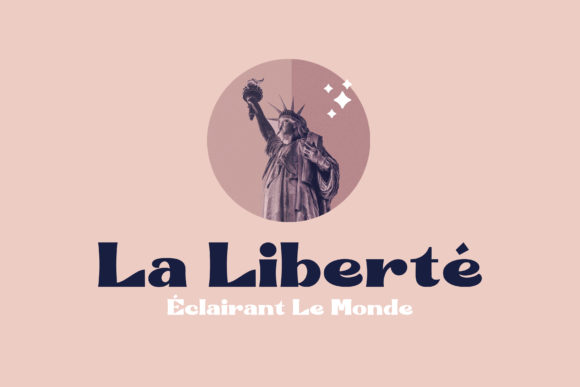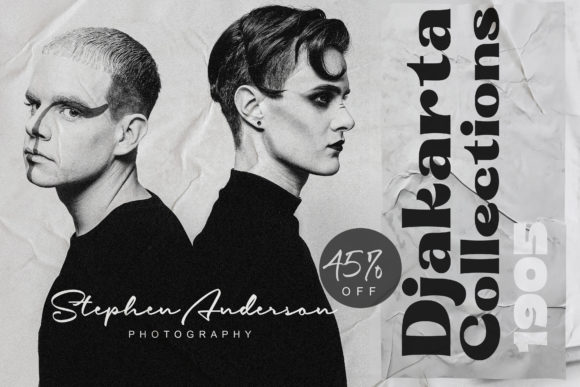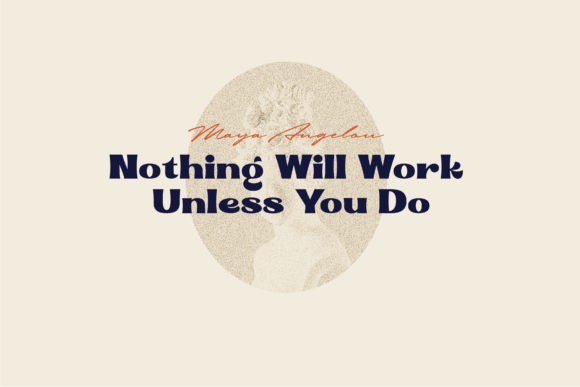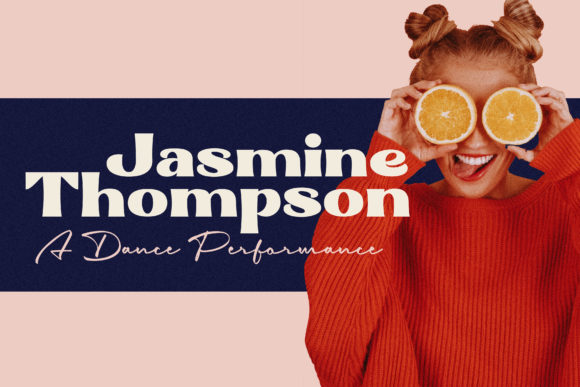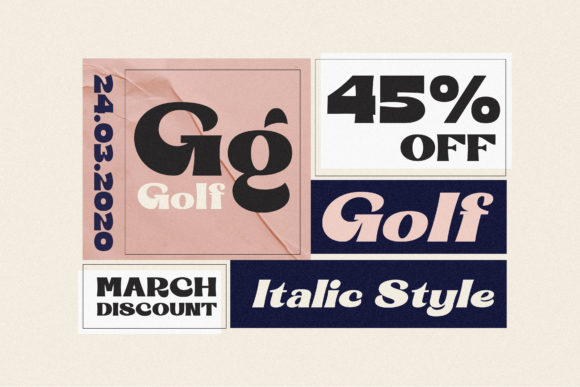
Introducing Gabrielly Font: A Playfully Nostalgic Display Font with a Vintage Aesthetic
Are you a designer or crafter looking for a font that can add a touch of nostalgia and vintage charm to your projects? Look no further than Gabrielly Font! This display font is designed to evoke a sense of playfulness and nostalgia, making it perfect for logos, branding, packaging design, and more.
A Font that Takes You Back in Time
Gabrielly Font is a carefully crafted display font that delivers an incredible vintage aesthetic. Its unique design elements and classic typography make it an excellent choice for anyone looking to add a touch of nostalgia to their work. Whether you’re designing a logo, creating packaging, or developing a brand identity, Gabrielly Font is sure to impress.
Key Features of Gabrielly Font
- Playfully Nostalgic Design: Gabrielly Font is designed to evoke a sense of nostalgia and playfulness, making it perfect for projects that require a vintage or retro touch.
- Vintage Aesthetic: The font’s classic typography and design elements give it a distinctly vintage feel that’s sure to turn heads.
- Display Font: Gabrielly Font is a display font, making it perfect for use in headlines, titles, and other prominent text elements.
- Highly Versatile: This font can be used in a wide range of projects, from logos and branding to packaging design and more.
Why Choose Gabrielly Font?
There are many fonts available that claim to offer a vintage or nostalgic aesthetic, but Gabrielly Font stands out from the crowd. Here are just a few reasons why:
- Unique Design: Gabrielly Font has a unique design that’s both playful and nostalgic, making it an excellent choice for designers and crafters looking for something distinctive.
- High-Quality Typography: The font is carefully crafted with high-quality typography in mind, ensuring that it looks great in a wide range of sizes and applications.
- Ease of Use: Gabrielly Font is easy to use and can be easily integrated into a wide range of design projects, from print materials to digital applications.
Using Gabrielly Font in Your Design Projects
Gabrielly Font is an incredibly versatile font that can be used in a wide range of design projects. Here are just a few ideas to get you started:
- Logos and Branding: Use Gabrielly Font to create a unique and memorable logo or brand identity that stands out from the crowd.
- Packaging Design: Add a touch of nostalgia and vintage charm to your packaging designs with Gabrielly Font.
- Advertising and Marketing Materials: Use Gabrielly Font to create eye-catching advertising and marketing materials that grab attention and leave a lasting impression.
- Digital Applications: Gabrielly Font can also be used in digital applications, such as website headers, social media graphics, and more.
Gabrielly Font is an exceptional display font that delivers an incredible vintage aesthetic with a playfully nostalgic twist. Its unique design, high-quality typography, and versatility make it an excellent choice for designers and crafters looking to add a touch of nostalgia to their projects. Whether you’re creating logos, branding, packaging design, or more, Gabrielly Font is sure to impress. So why wait? Download Gabrielly Font today and start adding a touch of vintage charm to your design projects!